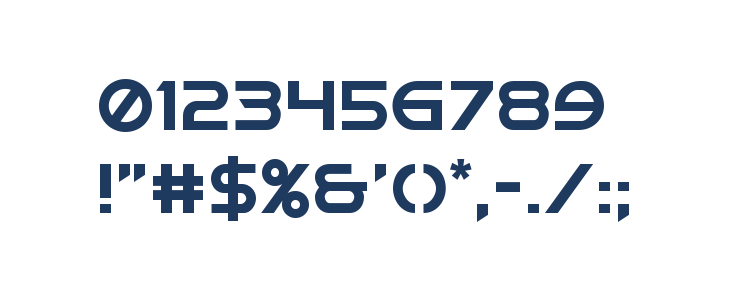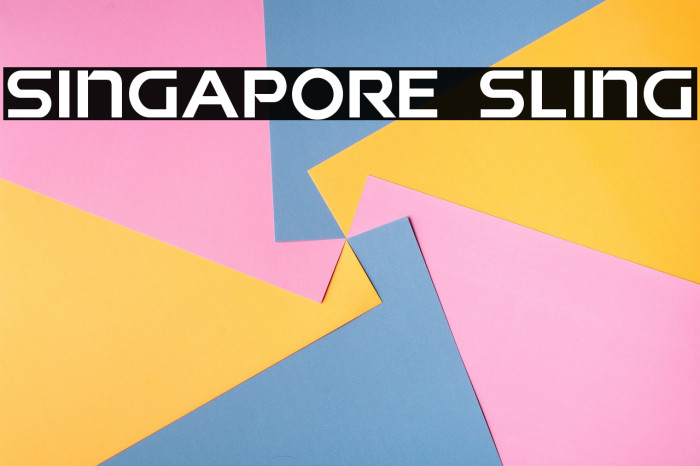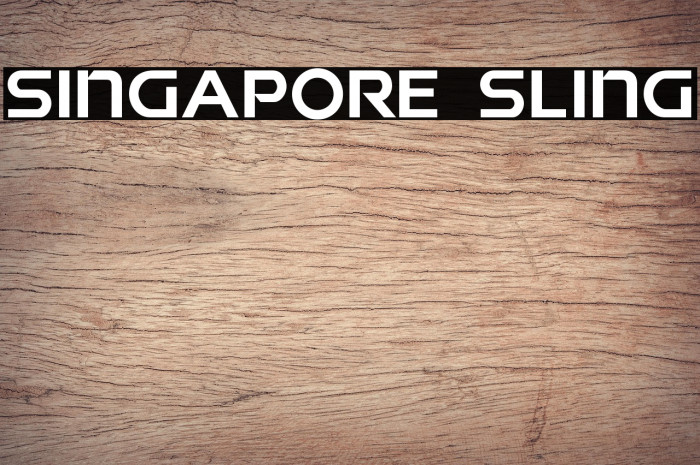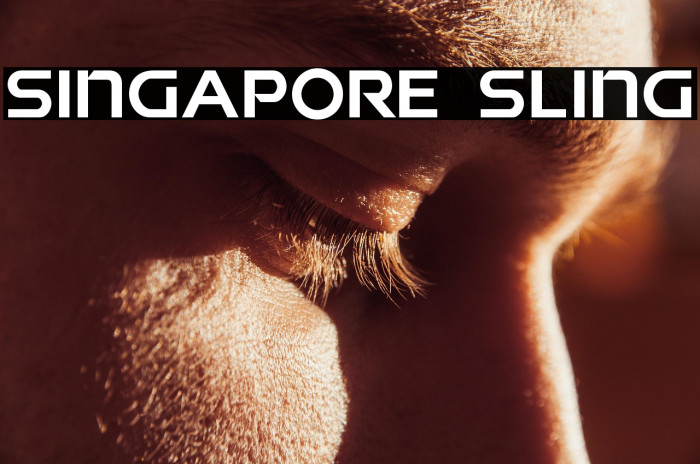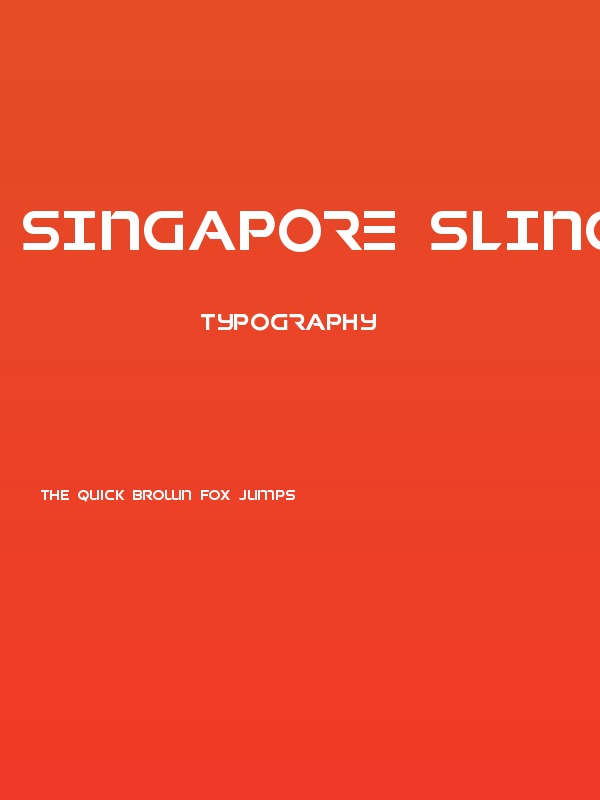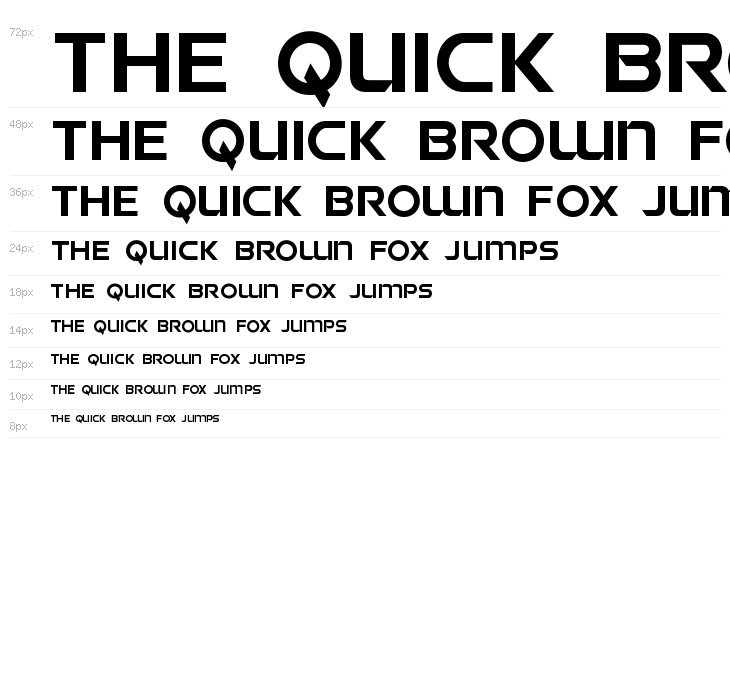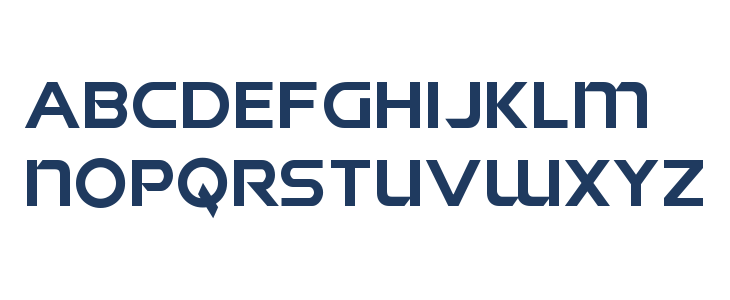
Singapore Sling Font
Singapore Sling Description
This font features a bold and modern design with geometric elements that create a futuristic and dynamic appearance. The uppercase letters are distinct with sharp angles and unique cuts, particularly noticeable in characters like 'E', 'F', and 'P'. The lowercase letters maintain a consistent style, offering a cohesive look across different text sizes. The numerals are equally bold, with a strong presence that complements the overall aesthetic. Special characters are designed to match the boldness and geometric style, making them suitable for various design applications.